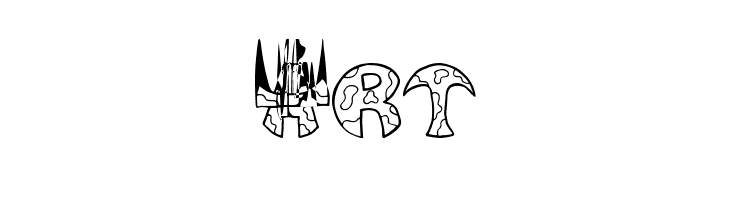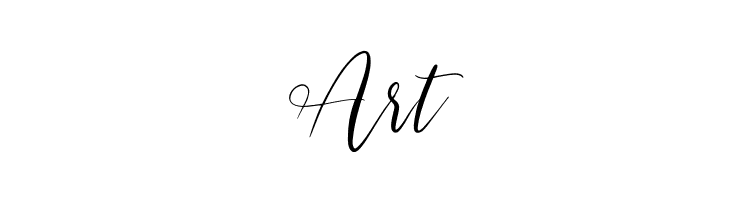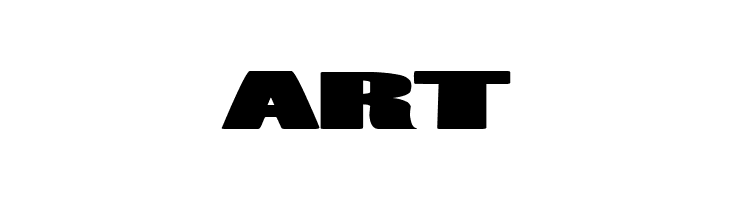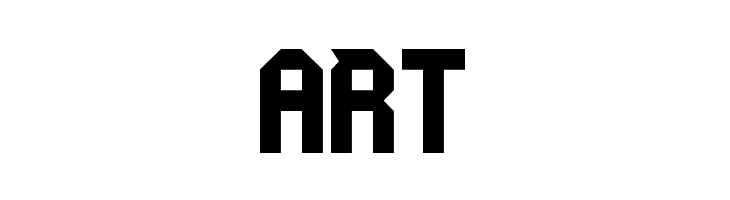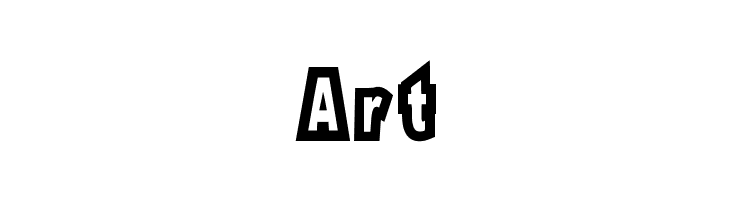
• Morpline
A modern, elegant script font with flowing, cursive characters.
• MOST
( Fonts by Ditya Ananto )
A bold, playful font with abstract, patterned interiors and thick outlines.
• Mostera St
• Motel Imperial
Bold, blocky font with a shadow effect for a three-dimensional look.
• Motherlove
A graceful and flowing script font with elegant curves and a sophisticated style.
• Mourint
( Fonts by Greentrik6789 )
A whimsical script font with elegant swirls and loops.
• Mozzarella Standard
A playful and artistic script font with bold, cursive letterforms.
• Mr Tech-Ly St
• Mr. Machine
A bold, blocky font with a strong, industrial feel.
• Mr. Wade
A sophisticated script font with flowing, elegant curves and a modern classic appeal.